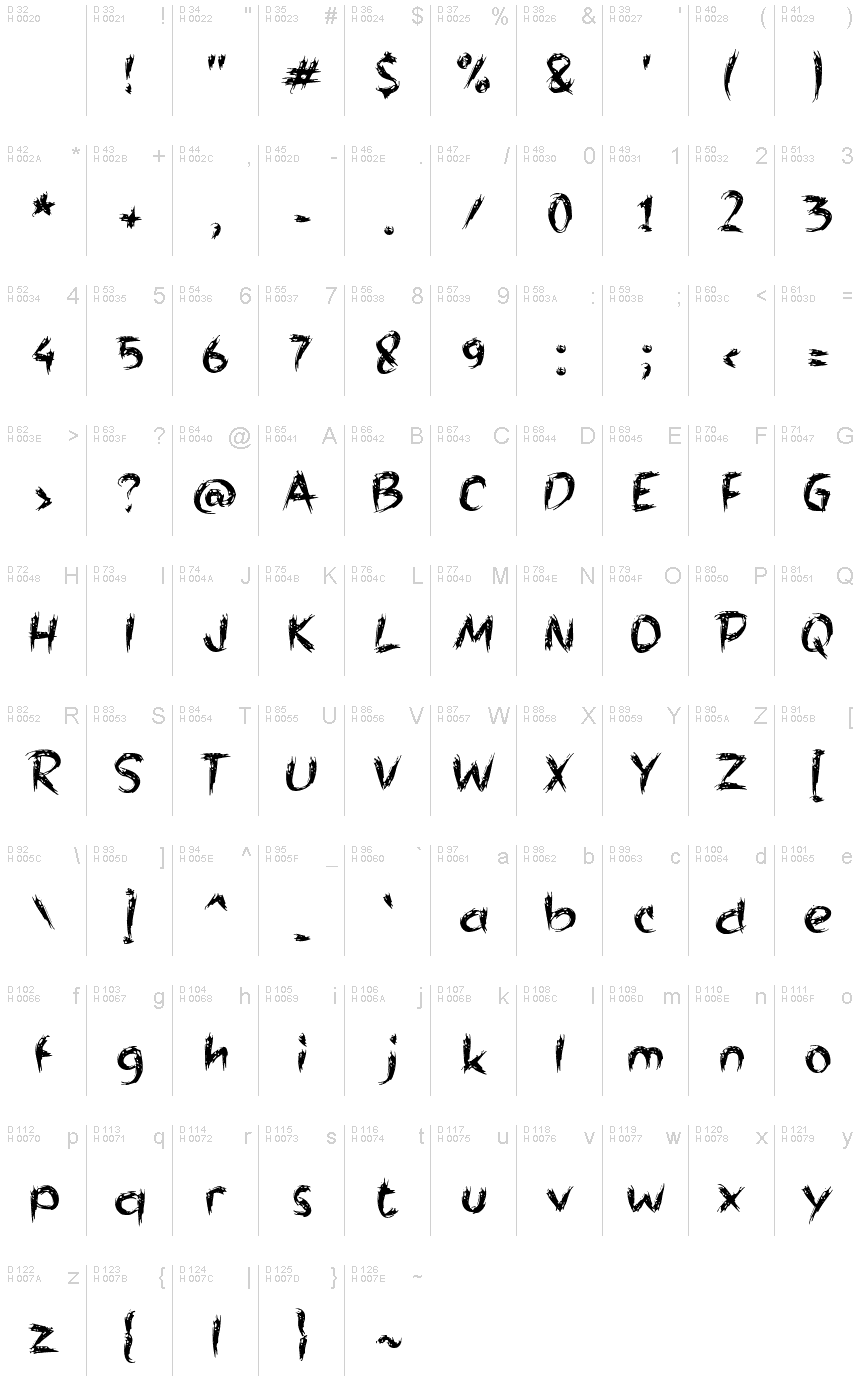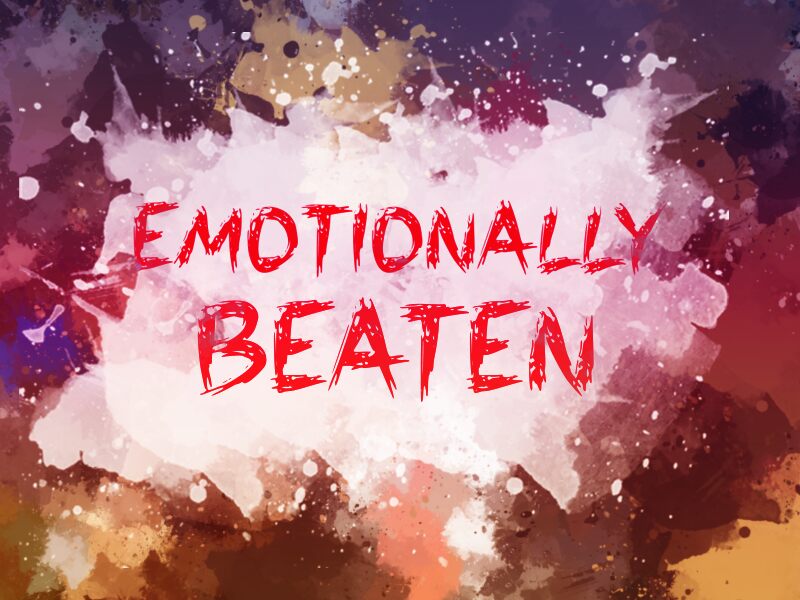
EMOTIONALLY BEATEN
Emotionally Beaten, a bold script font by wep, exudes an edgy charm with its trash style. Its rebellious strokes and distressed appearance make it perfect for projects that require a touch of grit and attitude. Use it to create impactful logos, album covers, or tattoo designs that embody the raw emotions of punk rock or grunge aesthetics. Let Emotionally Beaten add a dash of rebellion and authenticity to your next creative endeavor.